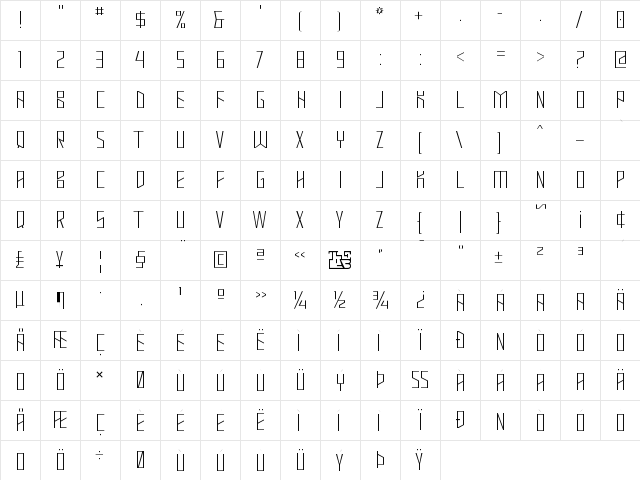
Mastodon Hairline Regular
Design Context for Mastodon Hairline Typeface
Mastodon Hairline takes a measured approach to typography — its balanced proportions and neutral character make it a reliable workhorse for both digital and print work. Its slender proportions lend an understated elegance to any composition.